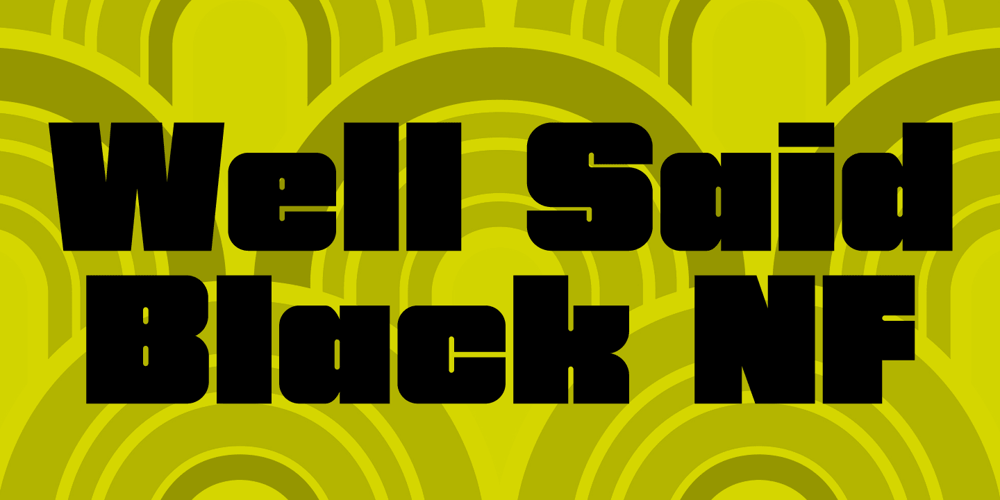
Well Said Black NF Font Family was designed by Nick Curtis and published by Nick’s Fonts. Well Said Black NF contains 1 styles and family package options. This commanding typeface is based on Welling Black, a Fotostar offering from the 1970s. Equally well suited for headlines and subheads. Both versions support the Latin 1252, Central European 1250, Turkish 1254 and Baltic 1257 codepages.